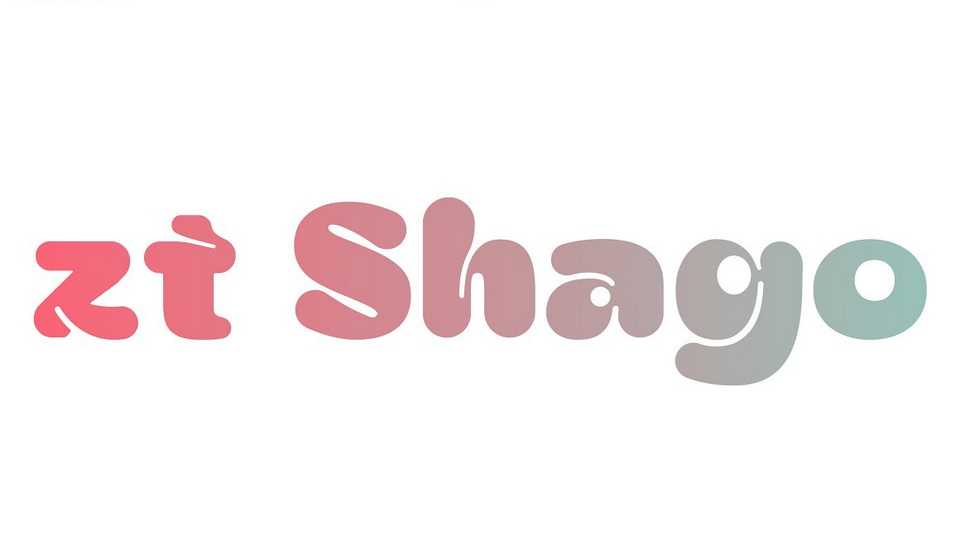
Zt Shago Font Family › Fontesk – Download Grátis
Download Zt Shago font, a font family of 3 eye-catching display forms, each style has its own character, from very strong and soft angles. When you’re looking for fonts with fun messages, you can find them in the Zt Shago family.
Designer: Zelow Type